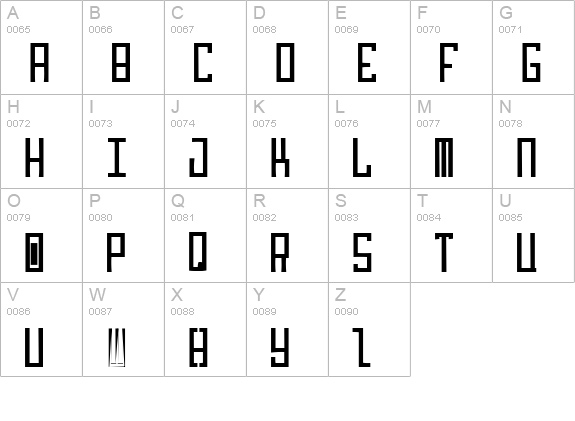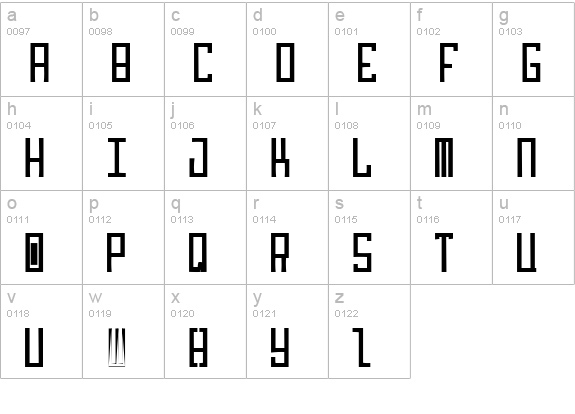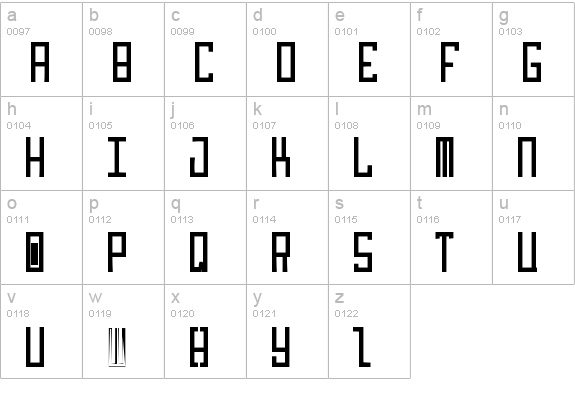
Idiot Font Details
Introducing the Idiot font, a playful and whimsical typeface that adds a touch of lightheartedness to any project. This font is perfect for those looking to inject some fun and personality into their designs. With its quirky and exaggerated letterforms, Idiot font brings a sense of humor to your words, making them jump off the page. Not only does Idiot font offer an abundance of character, but it also comes with the added benefit of being free. That's right, this amazing font is freely available to download at FontsMarket.com, making it accessible to everyone. Whether you're a designer on a budget or simply looking to add some creativity to your personal projects, Idiot font is here to save the day. Idiot font is versatile and can be used across a wide range of mediums. From greeting cards and invitations to social media graphics and website designs, this font is sure to bring a smile to anyone who sees it. Its bold and vibrant appearance ensures that your message will never go unnoticed. Featuring a wide variety of alternate characters and ligatures, Idiot font allows you to customize and personalize your designs to your heart's content. Whether you want to create a standout headline or add a playful touch to body text, this font has got you covered. So why wait? Download the Idiot font today from FontsMarket.com and start adding a dose of fun and personality to your designs. Let your creativity run wild and watch as your projects come to life with this amazing and freely available font. Don't miss out on this opportunity to bring a little bit of whimsy to the world.